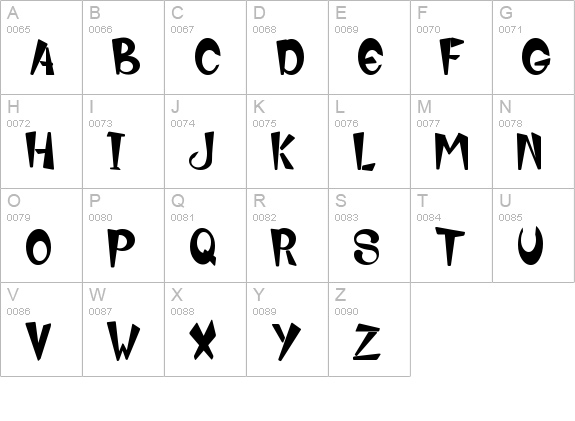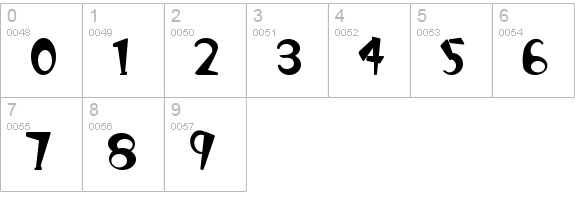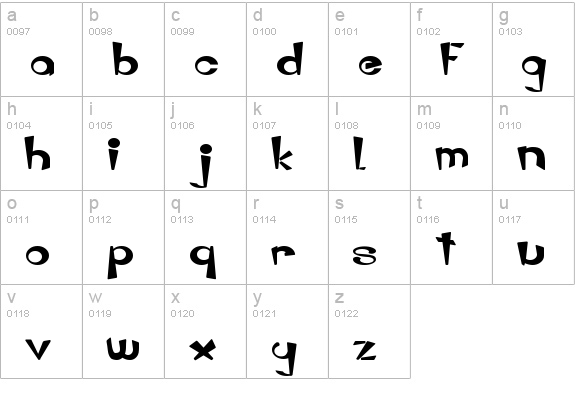
Zebbadee Font Details
Introducing Zebbadee font, a captivating and versatile typeface that exudes elegance and sophistication. With its unique blend of modern and classic elements, Zebbadee font is perfect for a wide range of design projects, from branding to editorial design and everything in between. This font features stylish, sleek letterforms with a touch of playfulness, making it a standout choice for those looking to make a statement with their typography. Best of all, Zebbadee font is available for free download at FontsMarket.com. This means that you can easily access this stunning typeface and incorporate it into your projects without any cost. Whether you're a seasoned graphic designer or a beginner looking to elevate your work, Zebbadee font is sure to inspire and impress. Don't miss out on this fantastic opportunity to add a touch of elegance to your designs with Zebbadee font. Download it today and let your creativity soar!